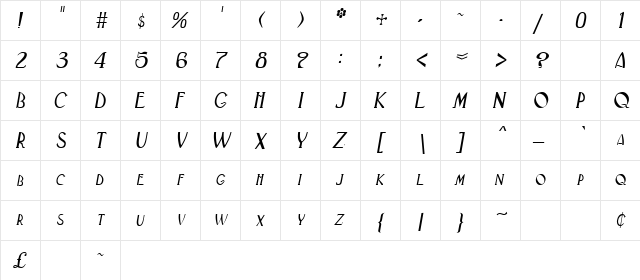
Labium Oblique
Design Context for Labium Typeface
Labium offers clean, dependable letterforms without strong stylistic allegiance, making it a practical choice for designers who need flexibility. The slanted form adds forward momentum and visual energy.
Pro Tip: Use Labium for emphasis, pull quotes, and subheadings where its slanted energy can add rhythm to the layout.